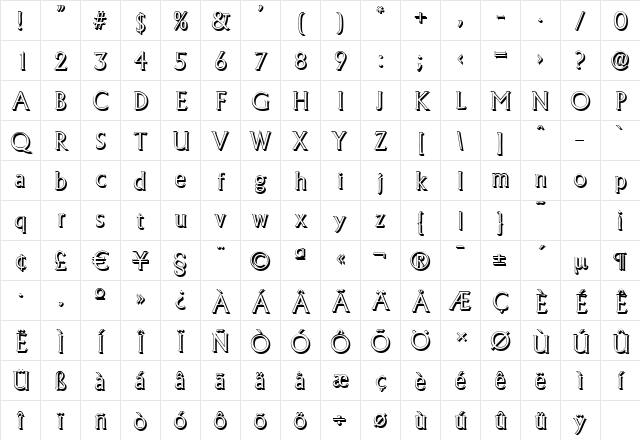
Design Context for AdelonShadow-Light
AdelonShadow-Light is built around its visual character rather than neutral utility - its distinctive forms are designed to make an impression at display sizes. Its slender proportions lend an understated elegance to any composition.
Font Pairing: Pair with a clean neutral sans-serif for body copy to let AdelonShadow-Light's character lead without overwhelming the composition.
Pro Tip: Use AdelonShadow-Light exclusively at display sizes - it was designed to be seen, not read at length. Let a neutral companion handle body copy.